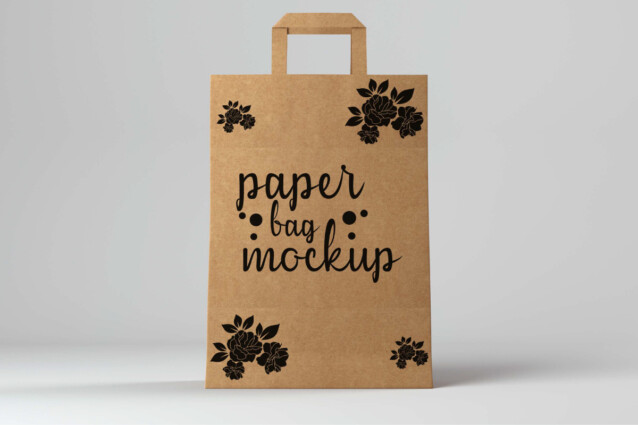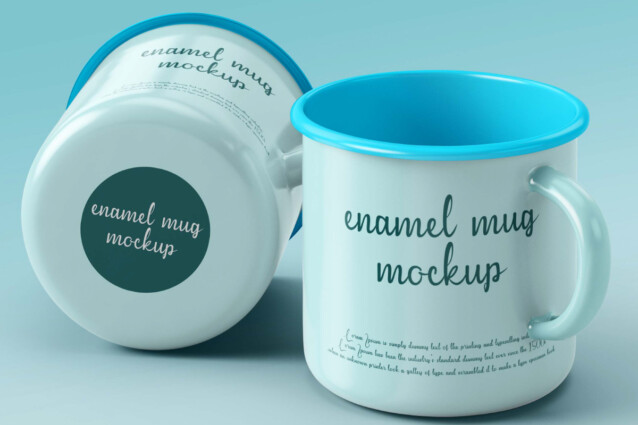
Berkleigh Font
Berkleigh Font is a beautiful cursive font with handwriting style, created by VinType Studio. This font has smooth flowing lines and conveys a feminine feeling to every design you create. This font will be suitable for many industries, such as advertisement, author and writer, beauty product, event or wedding organizer, fashion, florist, handicrafts, homeware, printing, publishing, spa and salon, and more!
Berkleigh Font includes full set of Uppercase and Lowercase Basic Characters, Numerals and Punctuation, Ligature, and Alternate. The charm that this font has will make you want to use it in various types of designs, such as business card, cover, custom design, brand logo, brochure, label, packaging design, poster, quote, screen printing, stationery, website, etc.